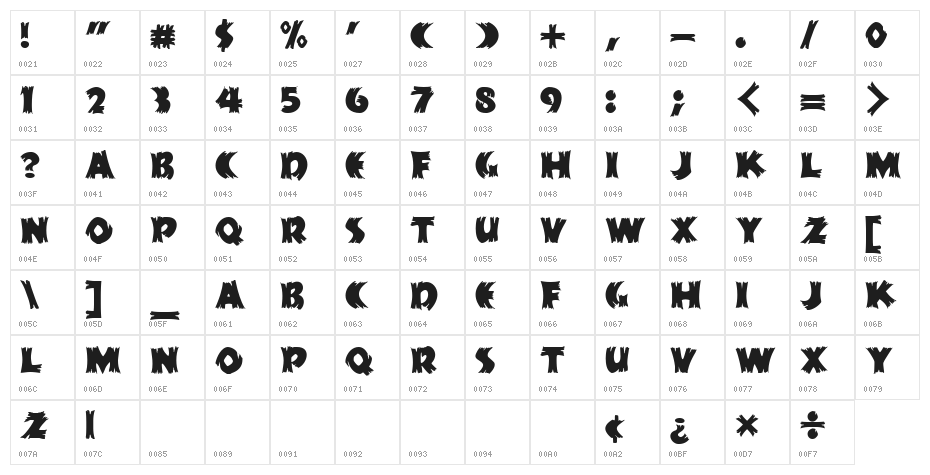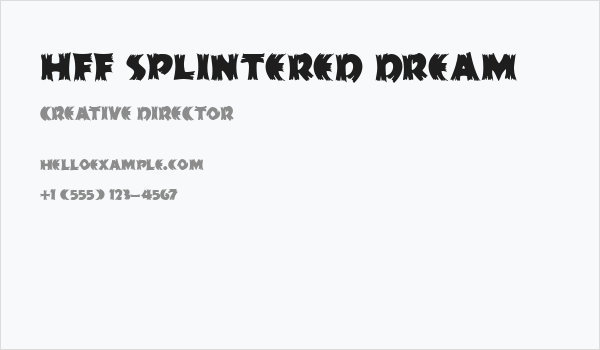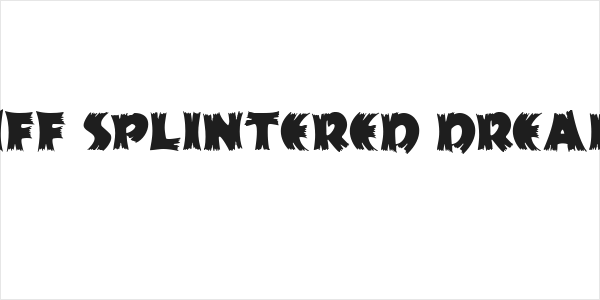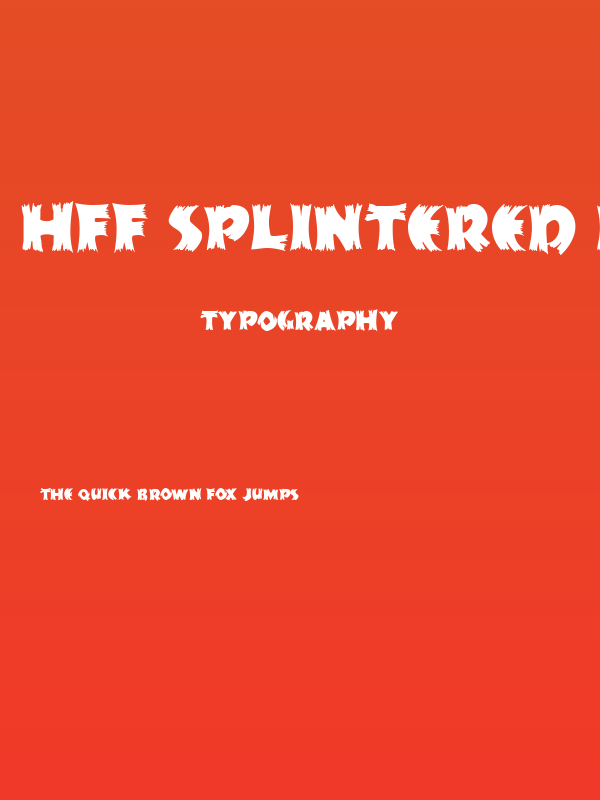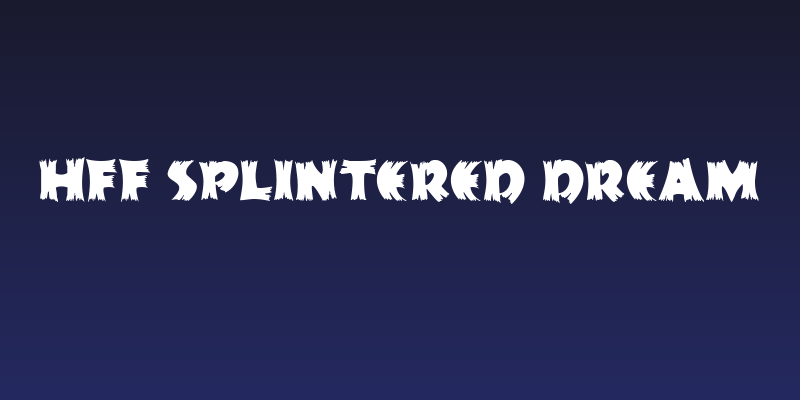
HFF Splintered Dream Font
HFF Splintered Dream Description
This font features a bold and jagged design, reminiscent of splintered wood or shattered glass. Each character is uniquely crafted with sharp, irregular edges, giving it a dynamic and edgy appearance. The uppercase and lowercase letters maintain a consistent style, ensuring readability while still conveying a sense of chaos and energy. Numbers and special characters are equally stylized, making them suitable for attention-grabbing designs. The overall look is striking and unconventional, perfect for projects that require a dramatic and impactful visual statement.
| Use Case | Headlines, Posters, Logos |
| Proposed Projects | Ideal for horror-themed posters, Halloween invitations, edgy branding, or any project requiring a dramatic visual impact. |